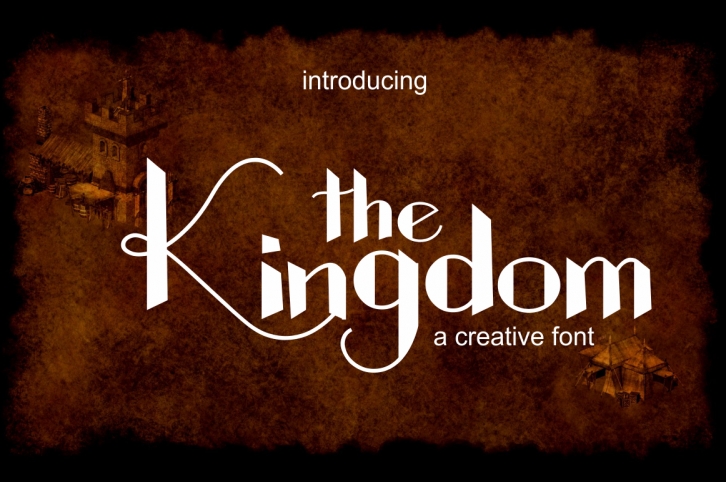
Kingdom is a beautiful font that was designed by JR Letter. It's a great choice for designers and creatives who need such a font. It was released on February 28, 2018 and the file size is 4.94 MB. Kingdom may give a more youthful, expressive and casual look to your project. It is a very beautiful, refined, elegant, and high-quality font.